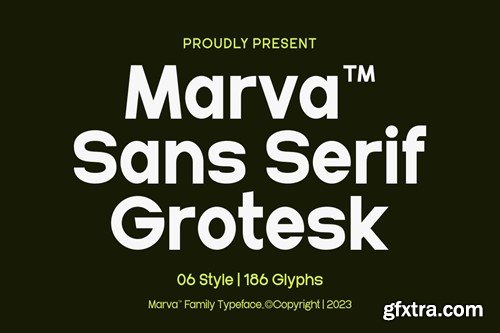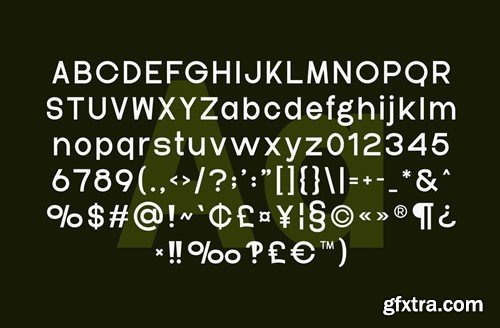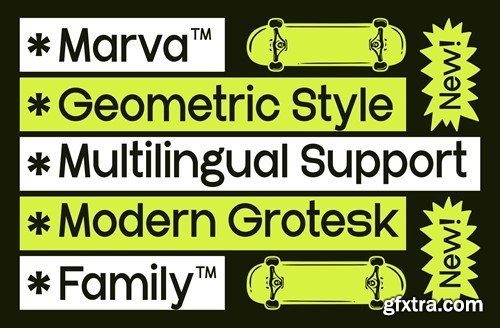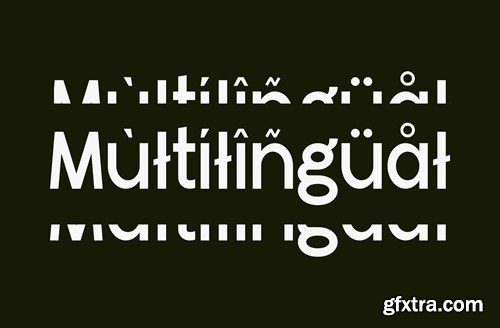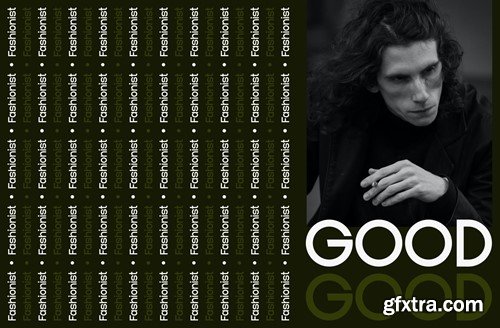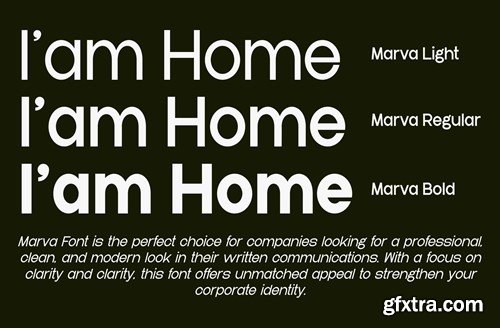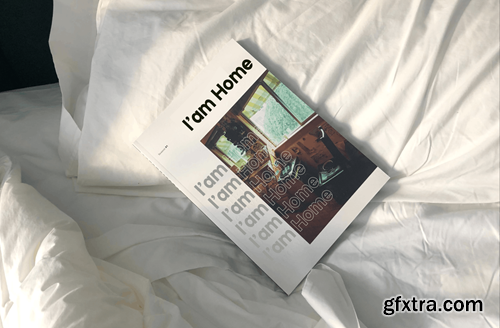
Marva - 一款现代无衬线字体家族V8Y8ZQ3
Marva - A Modern Sans Family Font V8Y8ZQ3
Marva - A Modern Sans Family Font
Introducing our new product Marva Font - A Modern Sans Serif Font authentic display font. The font is suitable for any branding project like logo, Template Design, Product and many more. outstanding in a wide range of contexts.
• Uppercase
• Lowercase
• Multilingual